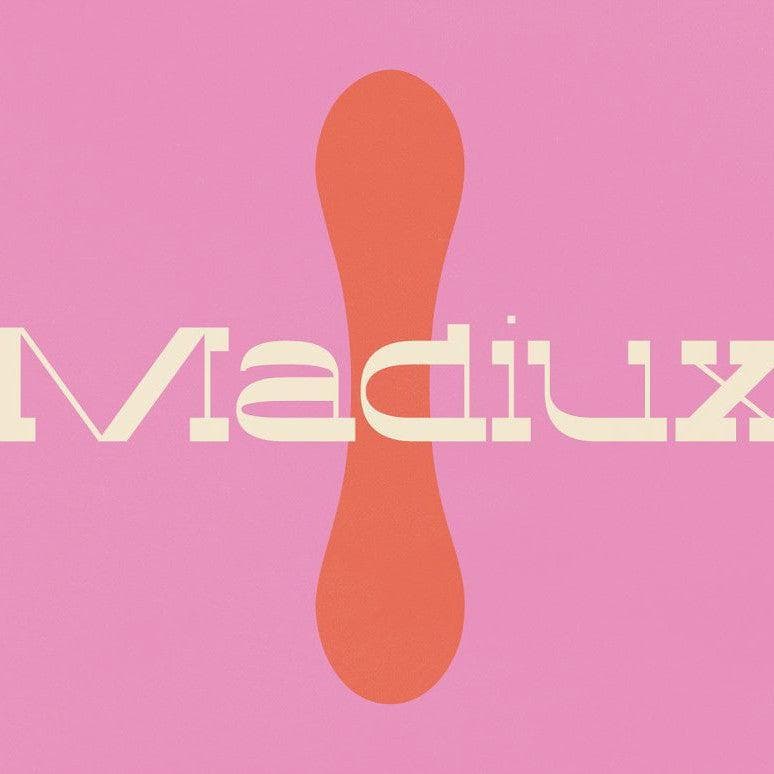
Madiux Typeface cover
<p>Madiux&nbsp;is a retro/modern Parisian inspired display typeface, defined by a mix between smooth curves and straight edges held together by a stark contrast of thin and bold.&nbsp;<br>Madiux&nbsp;includes full uppercase, lowercase, numbers and punctuation + multilingual characters (See preview for characters)</p>